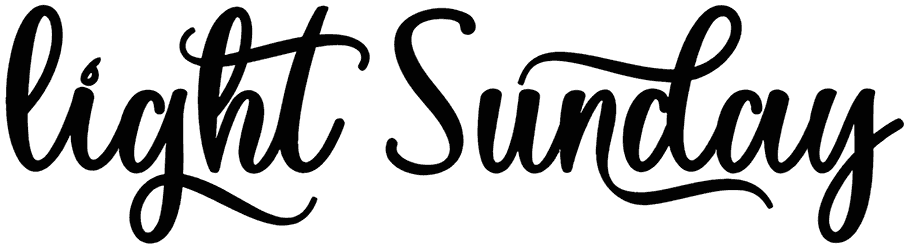
Light Sunday Font
Look at this playful, curvy font with modern form. Light Sunday is a calligraphy font with wavy letterforms that could fit together with a lot of designs with various subjects. Set it on your future projects, such as invitation cards, apparel, social media posts, or more of the same, and Light Sunday as a script font will lend them an alluring and joyful vibe.